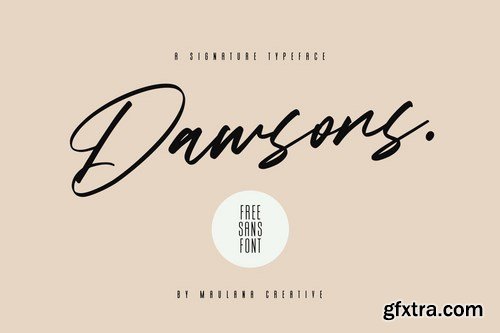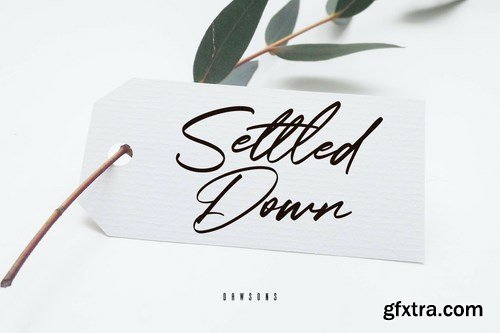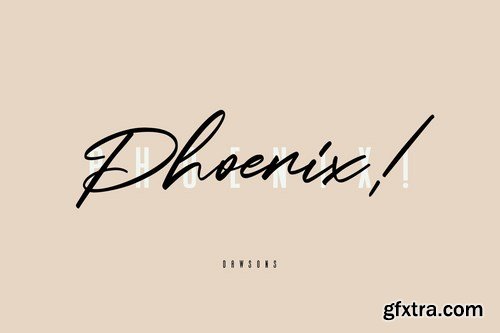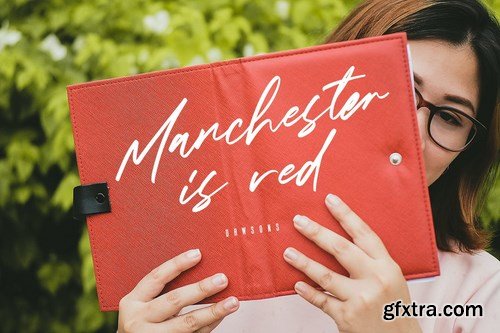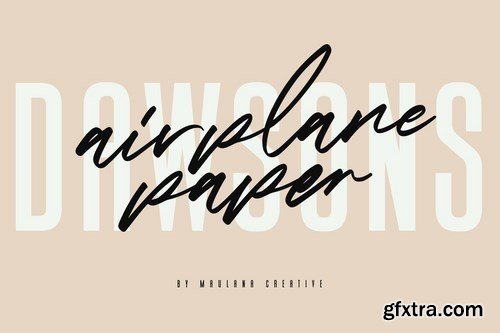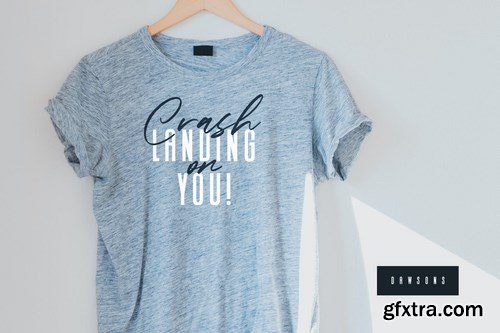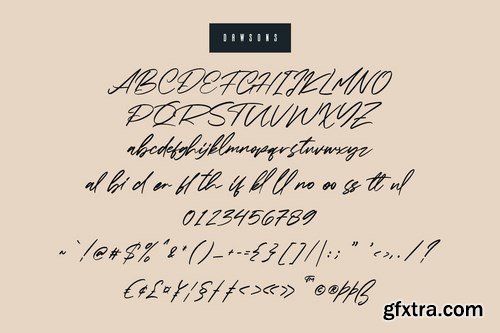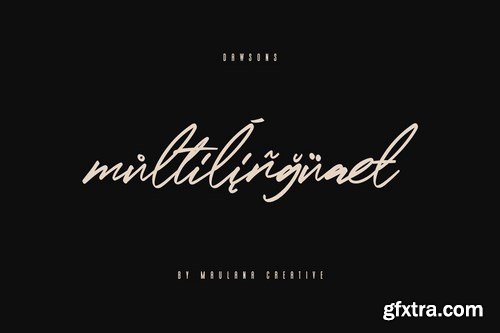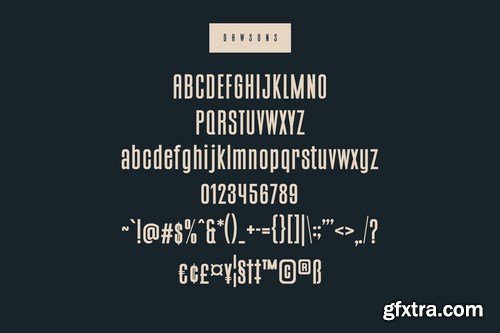
Give your designs an authentic brush handcrafted feel. "Dawsons Script" is perfectly suited to signature, stationery, logo, typography quotes, magazine or book cover, website header, clothing, branding, packaging design and more.